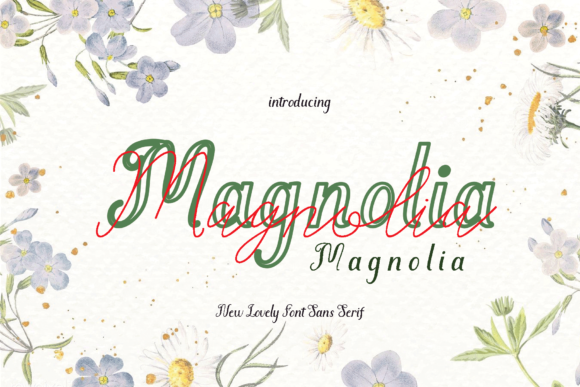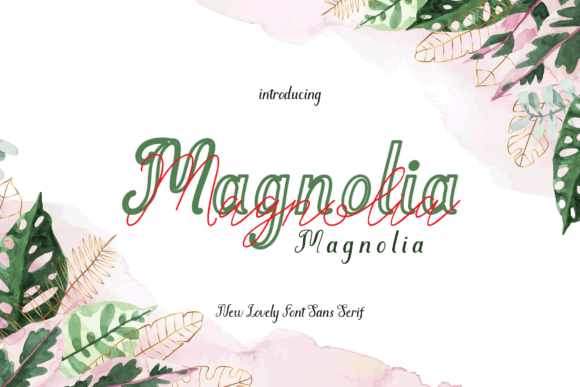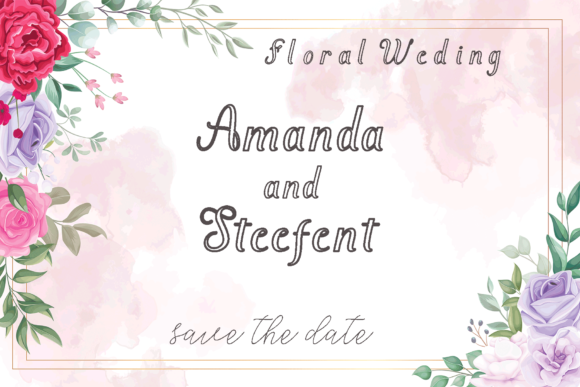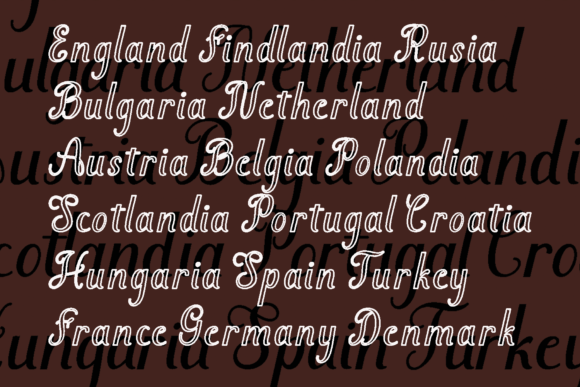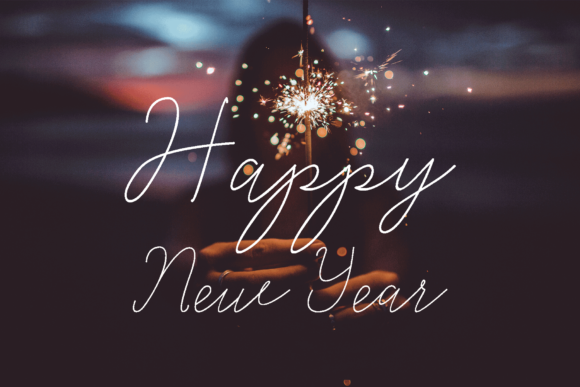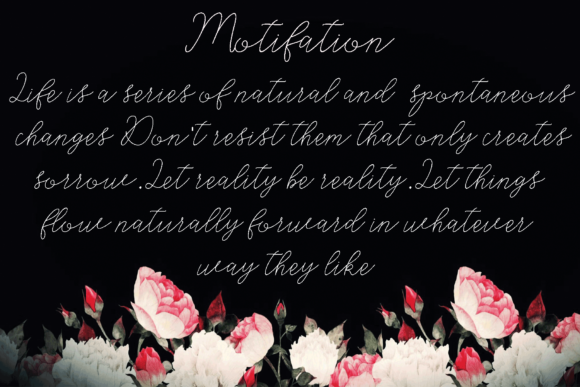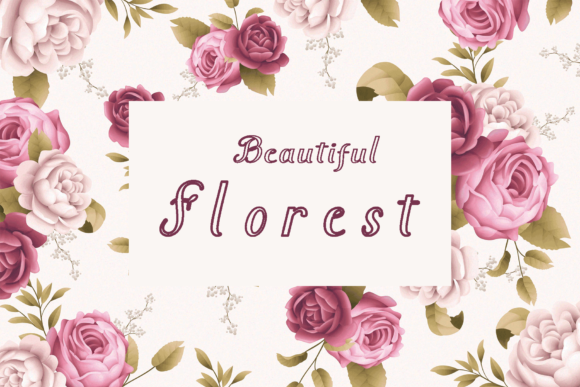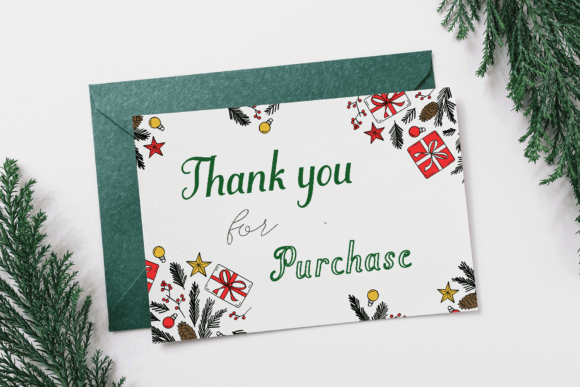
Magnolia Font
About Magnolia Font
Magnolia is a delicate script font, featuring a sweet flow. It can be used for various purposes such as logos, wedding invitations, headings, t-shirts, letterhead, signage, labels, news, posters, badges and so much more.